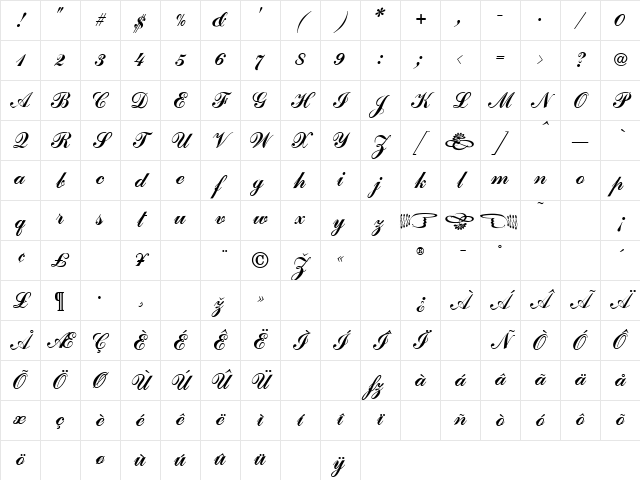
CommercialScript Regular
Foundry: Digitized by Dan X. Solo. Software by Dover Publications, Inc
Design Context for CommercialScript
CommercialScript flows with the natural rhythm of handwritten lettering, making it ideal for designs that call for warmth and personal expression.
Font Pairing: Combine CommercialScript with a simple geometric sans for maximum contrast - the tension between flowing curves and clean structure is a classic typographic pairing.
Pro Tip: Use CommercialScript for short runs of text - names, titles, or taglines. Extended body copy in script faces tires the eye quickly.